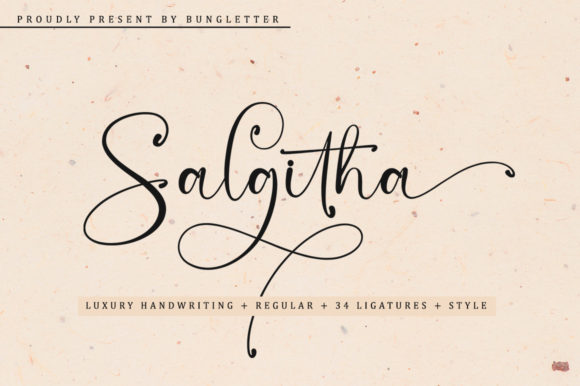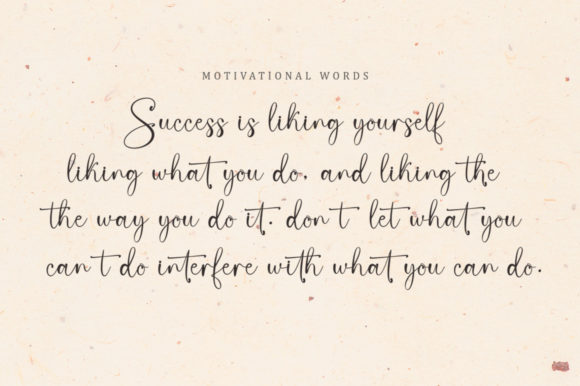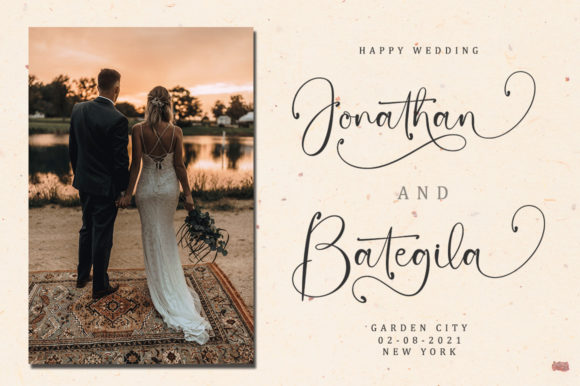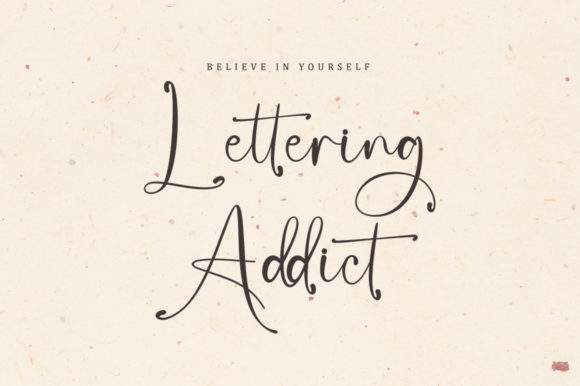
About Salgitha Font
“Salgitha” stands out as a modern luxury script font that seamlessly blends beautiful character changes and a decorative script style with a touch of classic signature elegance. With meticulous attention to detail, this font is designed to bring a sense of luxury and sophistication to any project.
One of the captivating aspects of “Salgitha” lies in its beautiful character transformations, which contribute to the overall luxurious feel of the script. The font strikes a balance between a decorative script and a classic signature style, offering a versatile typographic solution for various design applications.
The attractiveness of “Salgitha” stems from its clean, feminine, sensual, glamorous, and simple appearance. The font’s pleasing aesthetic makes it suitable for a wide range of creative endeavors, from upscale branding to elegant invitations. Its readability is enhanced by the luxurious letter relationships, ensuring that the font remains easy on the eyes while exuding a sense of opulence.
One notable feature of “Salgitha” is its PUA encoding, providing easy access to an array of amazing glyphs and ligatures. This feature enhances the font’s flexibility, allowing designers to explore and utilize its full potential effortlessly. The extensive character set ensures that you have a wealth of creative options at your disposal.
Consider incorporating “Salgitha” into your projects when you aim to evoke a modern luxury aesthetic. Whether used for branding, invitations, stationery, or any design that calls for a touch of elegance and sophistication, “Salgitha” is crafted to bring a luxurious style to your typography with ease.